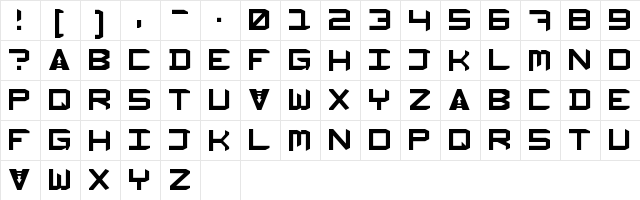
Delta Heavy Regular
Design Context for Delta Heavy Typeface
Delta Heavy offers clean, dependable letterforms without strong stylistic allegiance, making it a practical choice for designers who need flexibility.